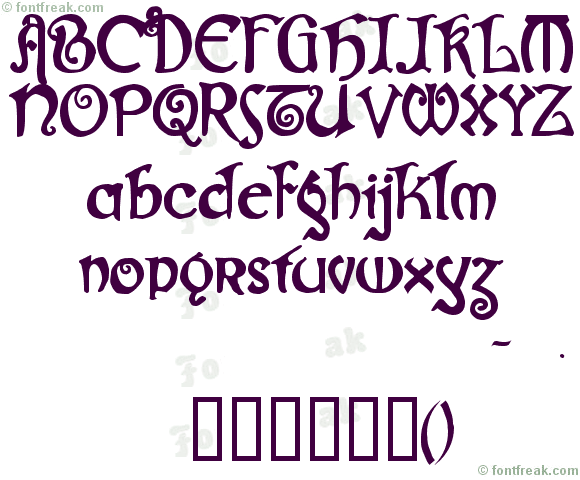
Gjallarhorn
About Gjallerhorn
Introducing the Gjallerhorn font by The Scriptorium, a striking display typeface that captures attention with its unique blend of elegance and boldness. Designed by David F. Nalle in 1998, this shareware font features a distinctive serif style characterized by its pronounced stroke weight and high contrast between thick and thin lines. The letters exude a sense of sophistication, making them perfect for a variety of creative projects. The spacing is well-balanced, allowing for easy readability while maintaining an aesthetic appeal.
The Gjallerhorn font is particularly well-suited for high-impact use cases. It shines on wedding invitations, where its ornate serifs can add a touch of luxury and formality. Moreover, it is an excellent choice for movie posters, as its commanding presence can effectively convey the drama and excitement of cinematic storytelling. Restaurant menus can also benefit from Gjallerhorn’s stylish flair, enticing diners with a memorable visual experience. Small business owners looking to craft a unique brand identity will find it invaluable for logo design and promotional materials, ensuring their message stands out in a crowded market.
Targeting graphic designers, small business owners, and content creators, Gjallerhorn offers versatility and character that can elevate any project. Its decorative elements, including elaborate serifs and striking letterforms, provide an artistic touch that can transform ordinary text into extraordinary visuals.
What sets the Gjallerhorn font apart is its ability to blend tradition with modernity. This typeface isn't just about aesthetics; it carries a sense of history and craftsmanship that resonates with those who appreciate the art of typography. For anyone seeking to make a statement, the Gjallerhorn font free download is an opportunity to incorporate a unique design element into their work, ensuring creativity and originality every time.